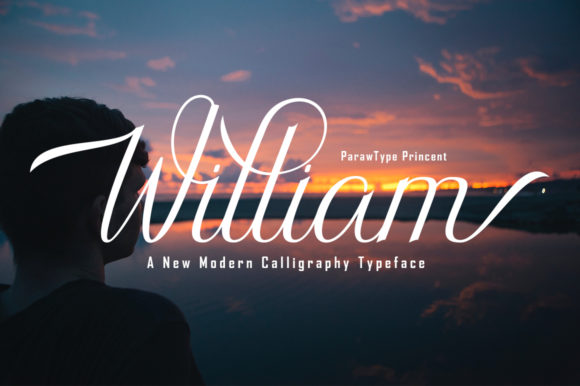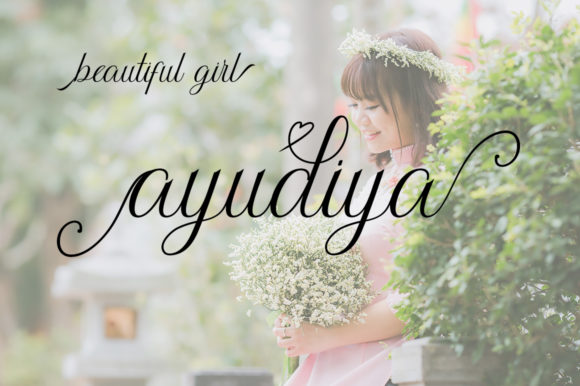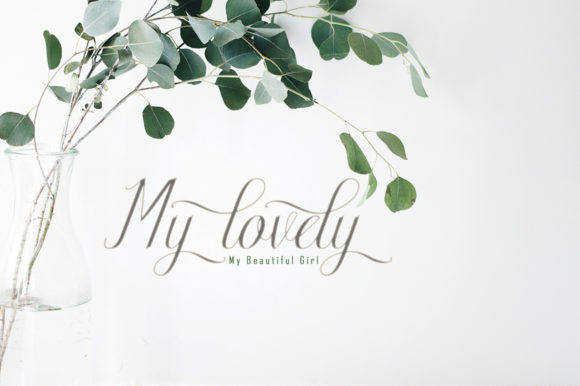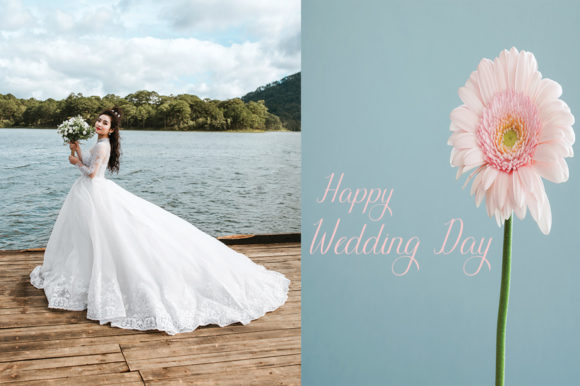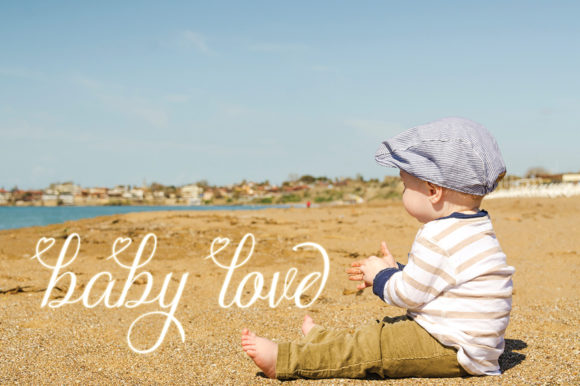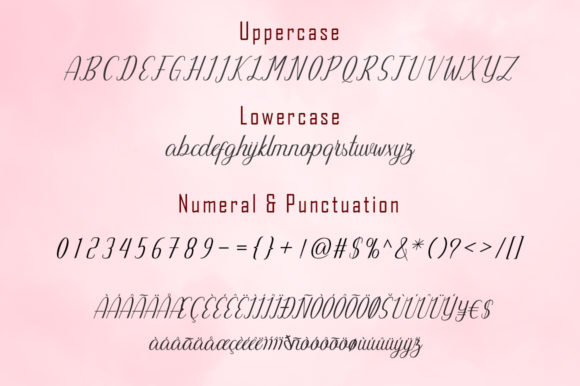
William Font
About William Font
William is a charming and cool handwritten font with a delicate feel. Use it to turn any design project into a true standout!